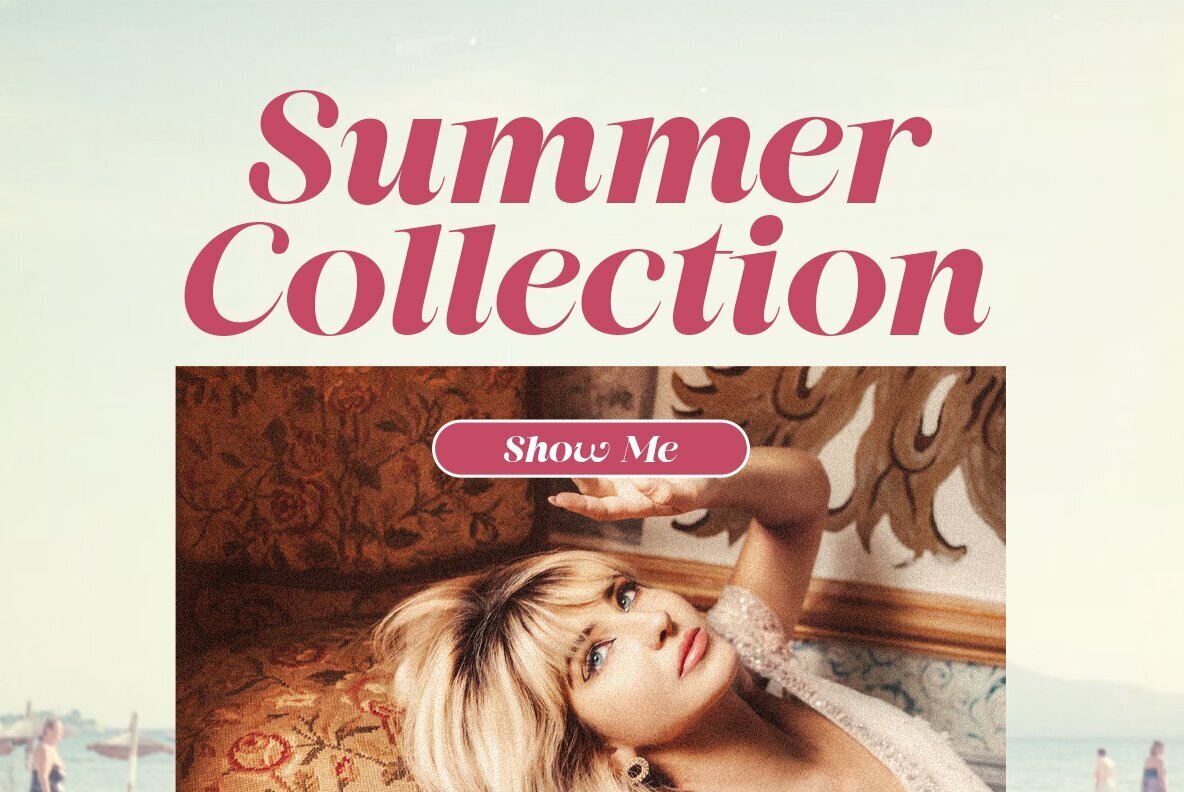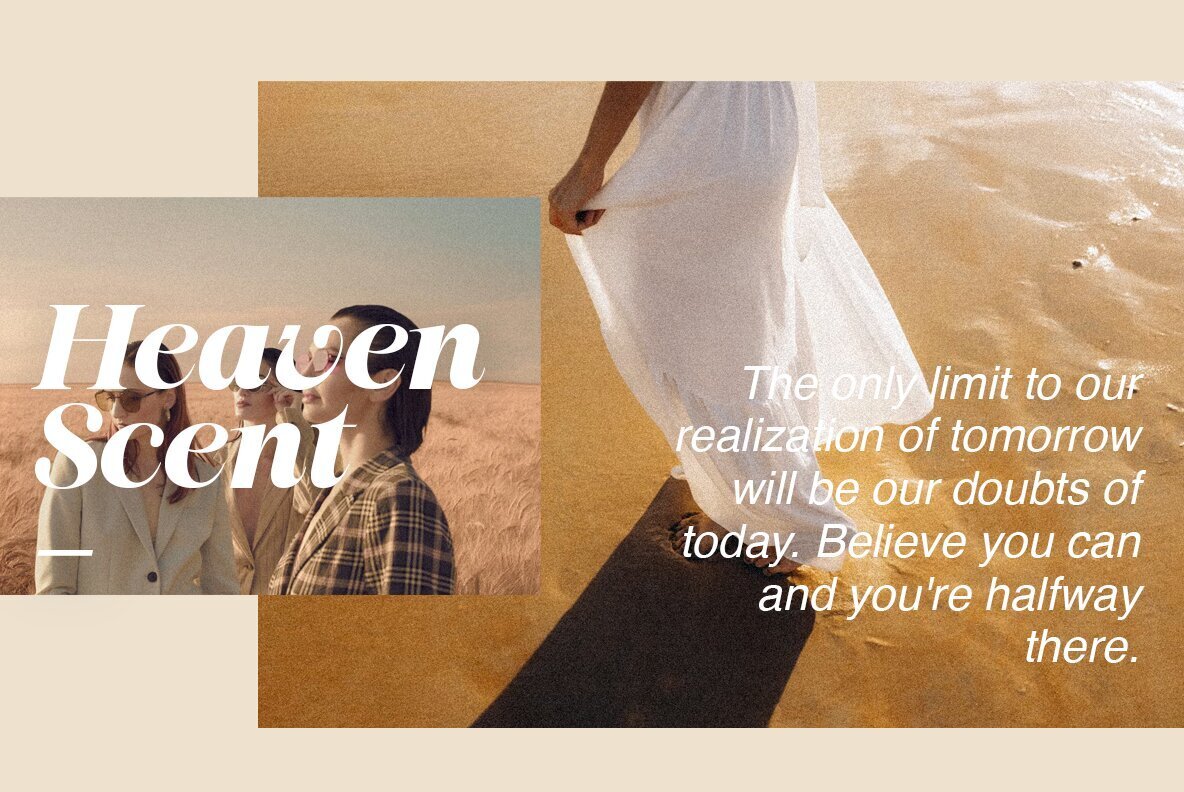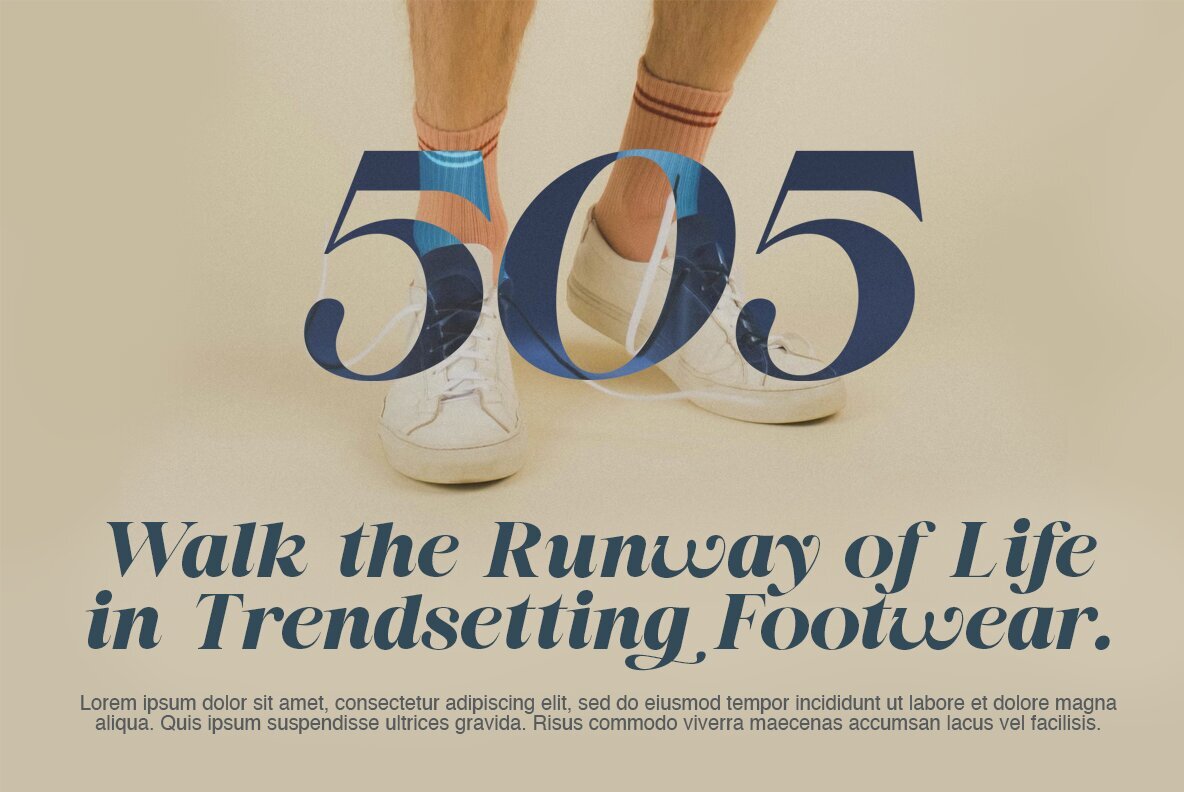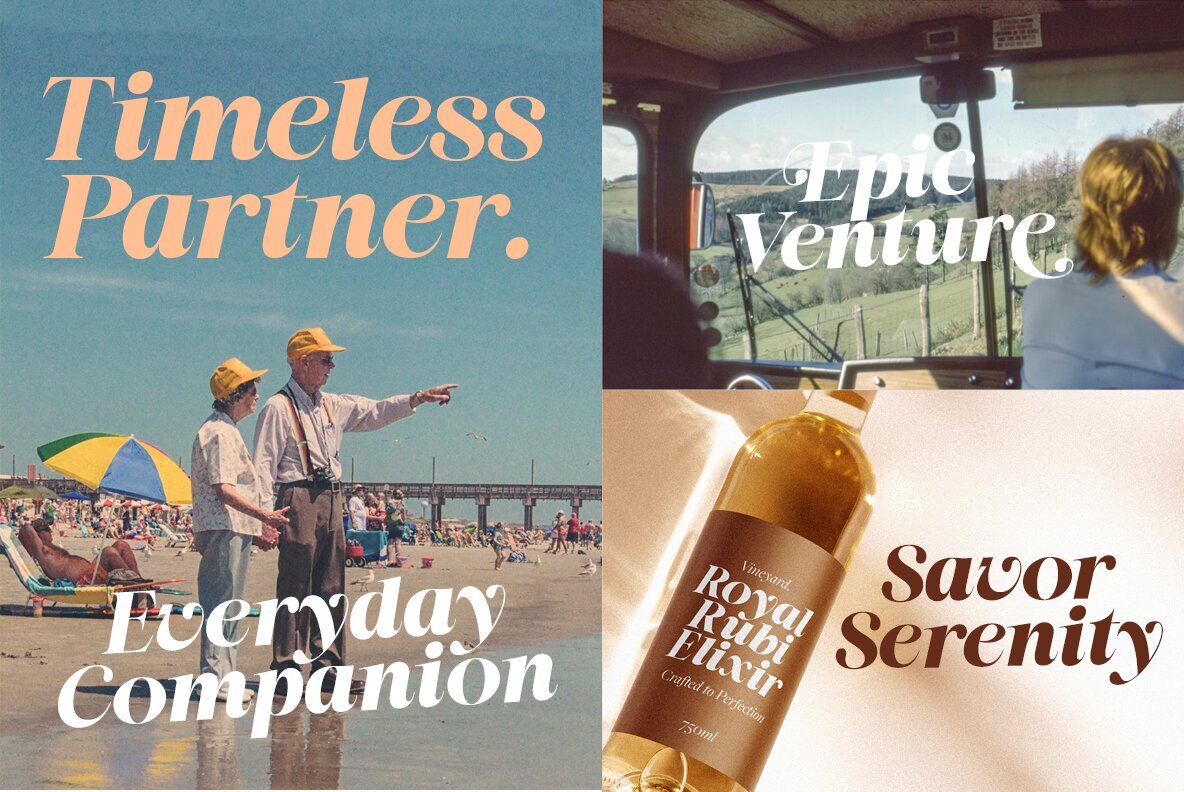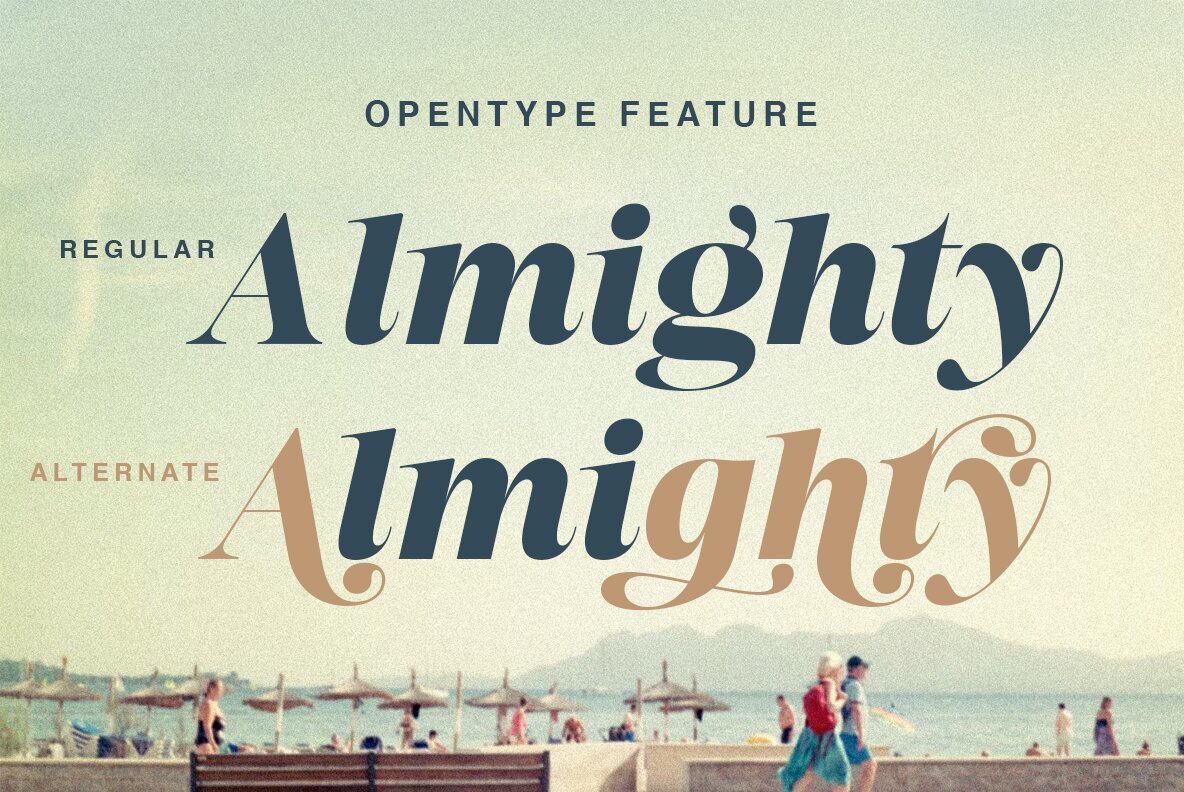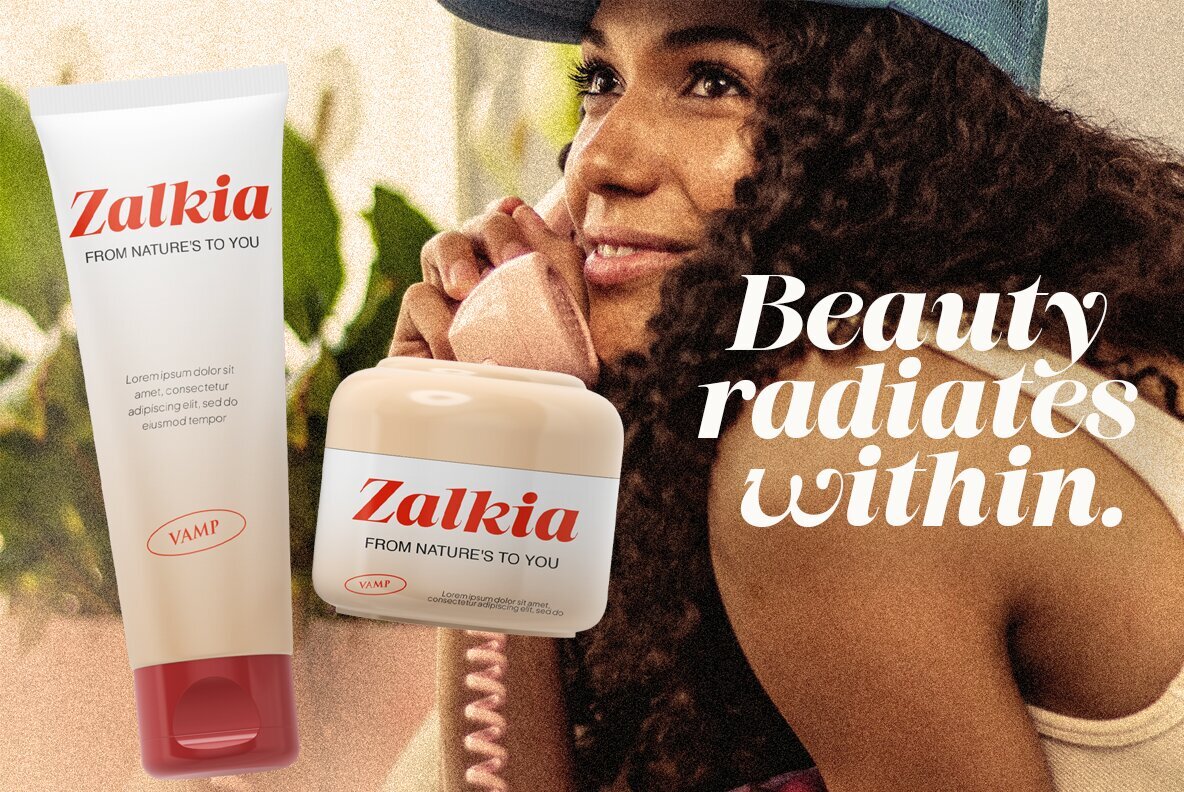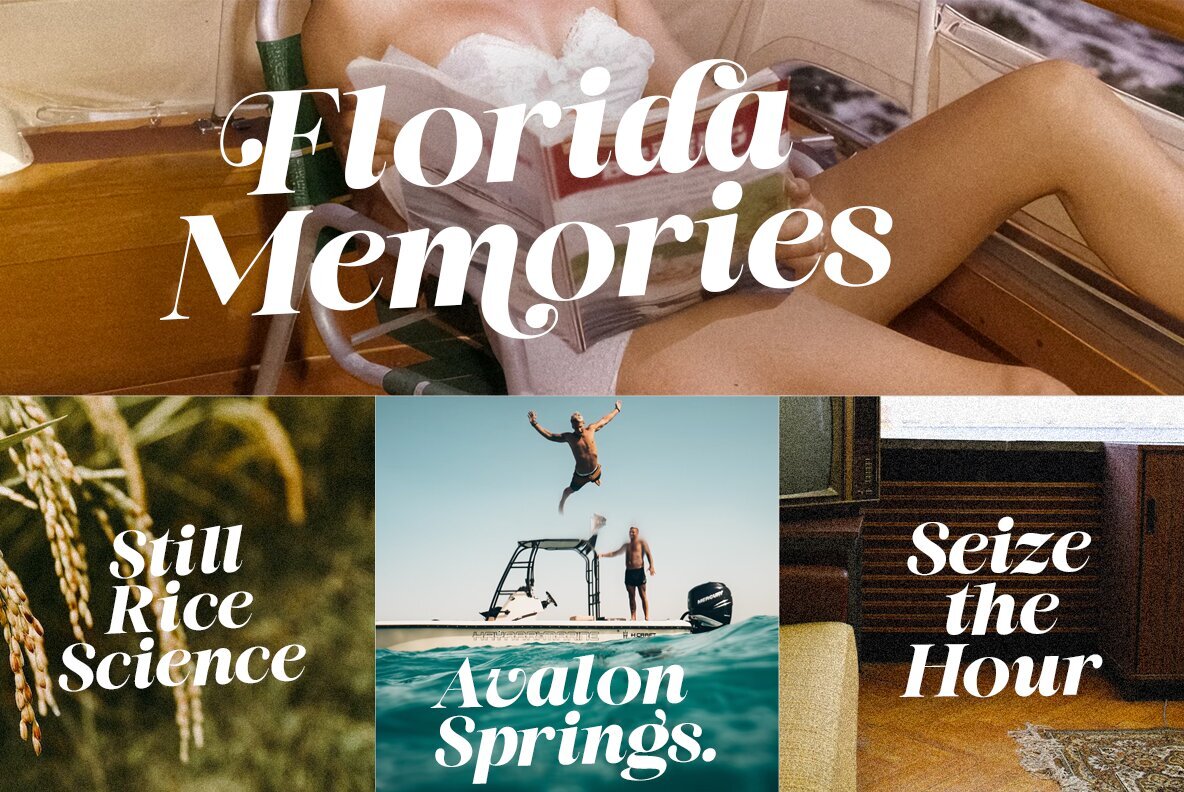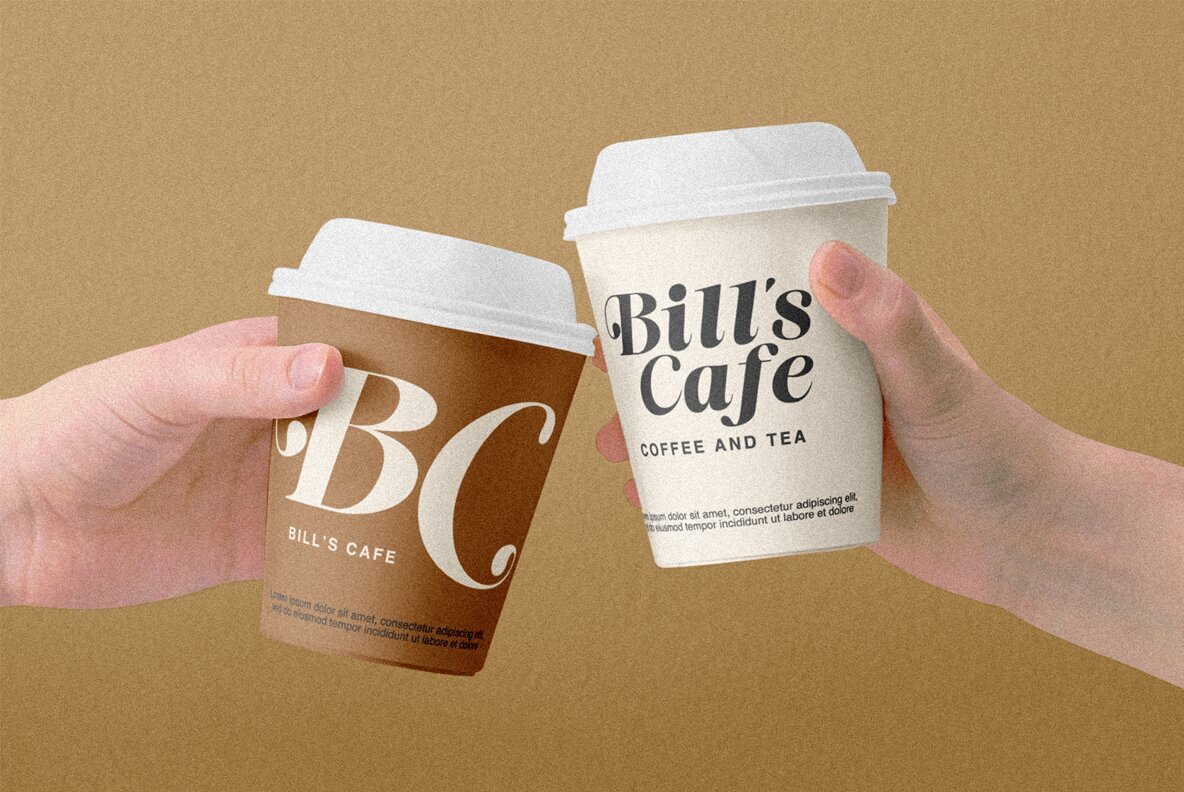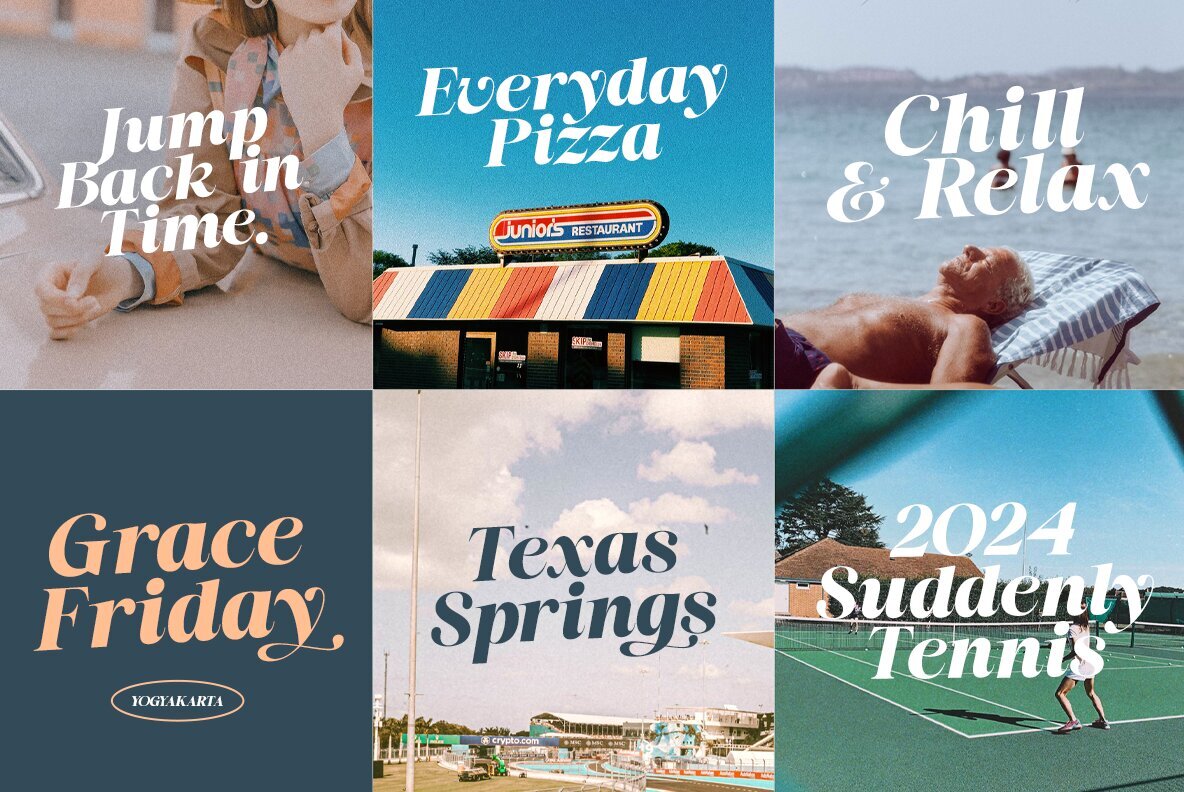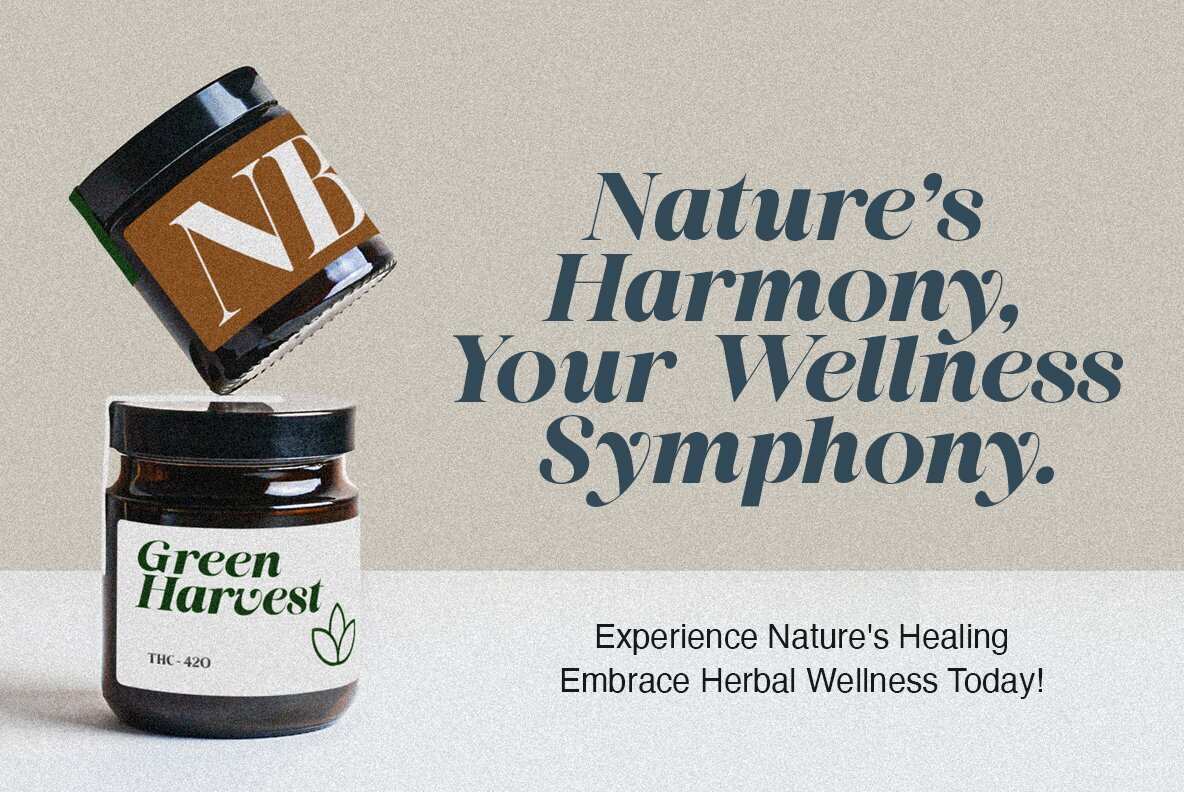
Capsule Eighty Font
Capsule Eighty Italic
Step into the nostalgic charm of the past with our latest Capsule Eighty font, inspired by iconic vintage styles. Infuse your designs with a touch of yesteryear's charisma and retro vibes. Perfect for adding a playful and timeless aesthetic to your projects. Explore the essence of retro design and let this font transport your audience to an era filled with character and personality. Capsule Eighty is perfect for branding projects, logo, wedding designs, social media posts, advertisements, product packaging, product designs, label, photography, watermark, invitation, stationery and any projects that need handwriting taste.